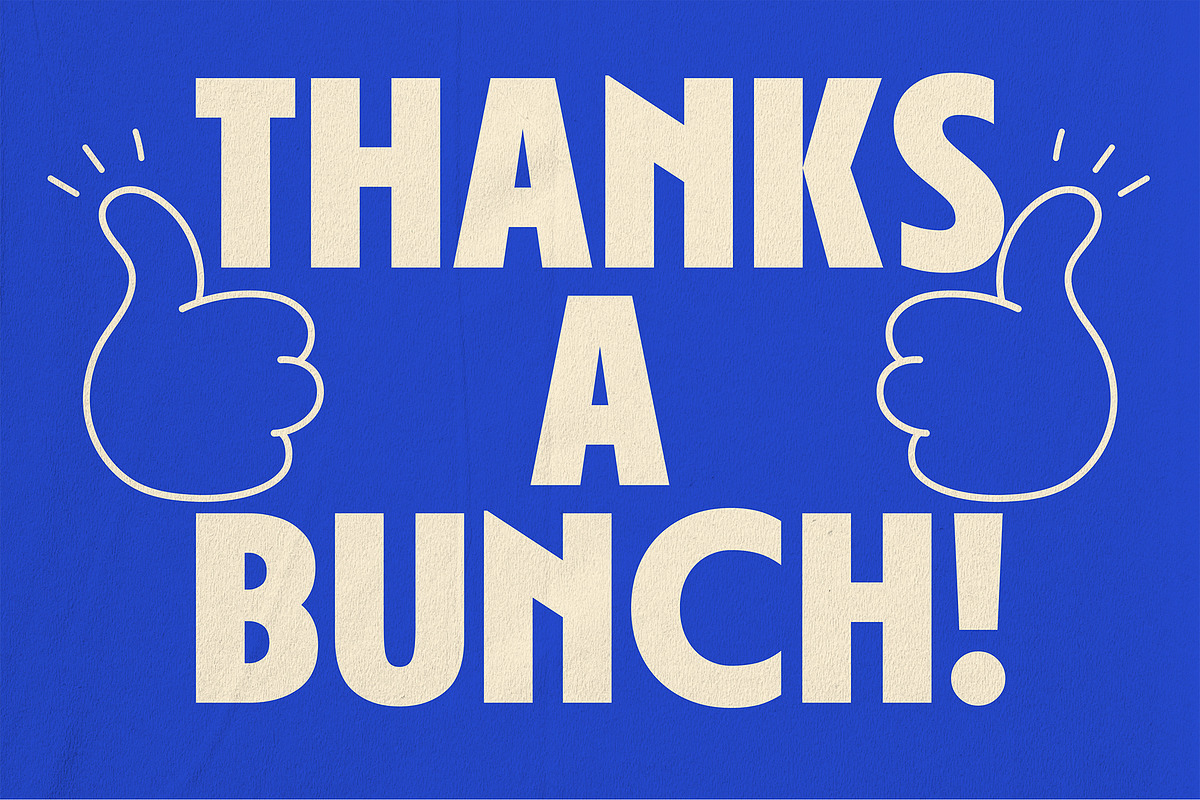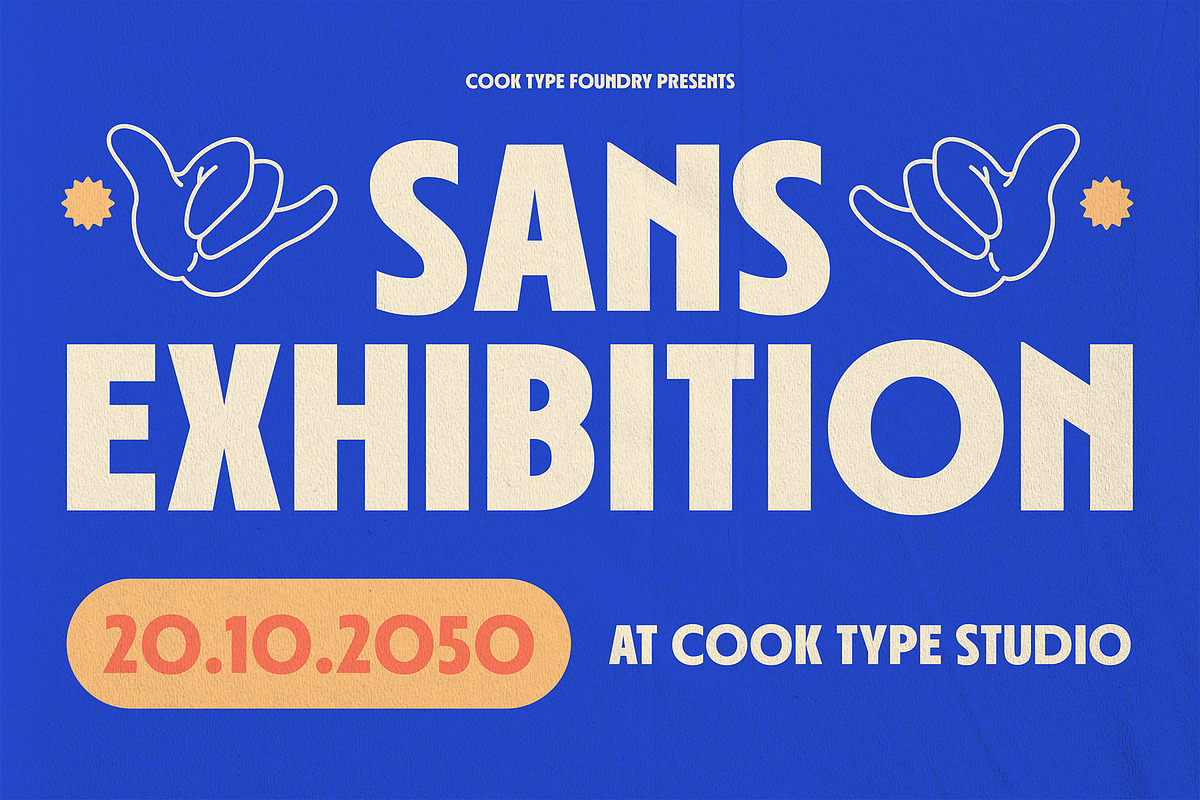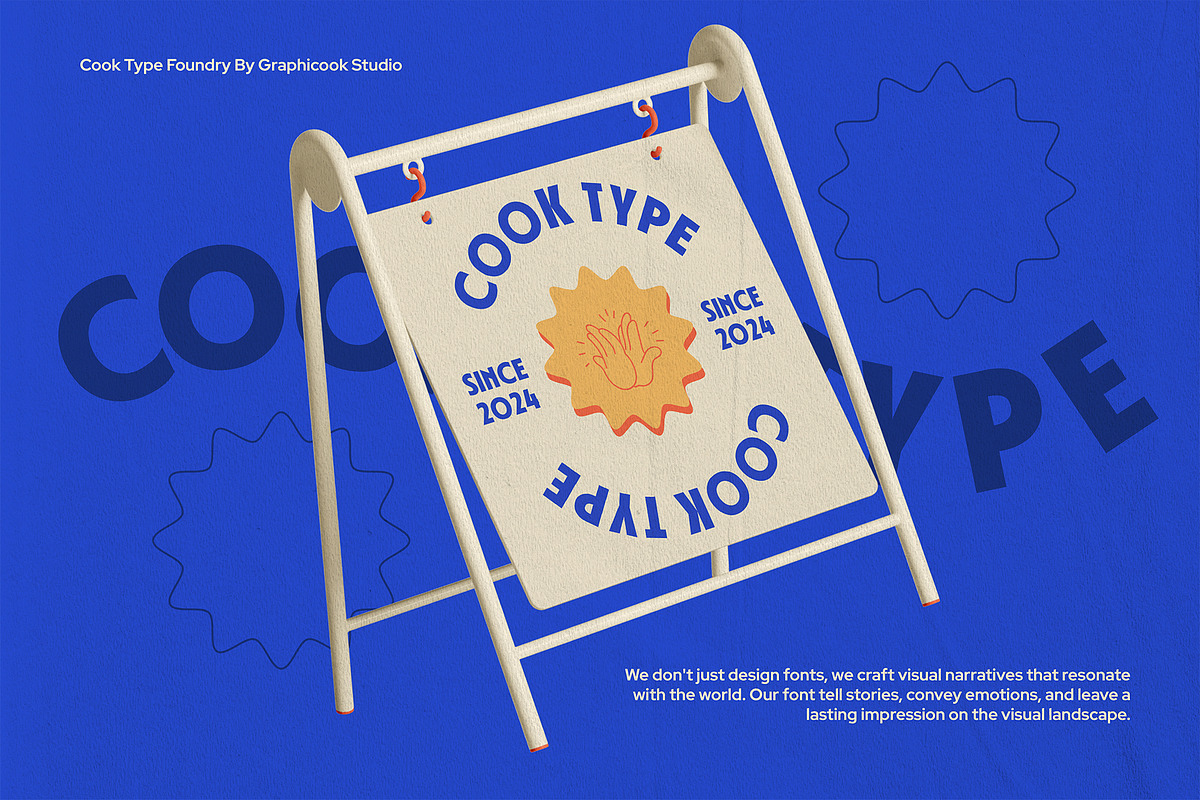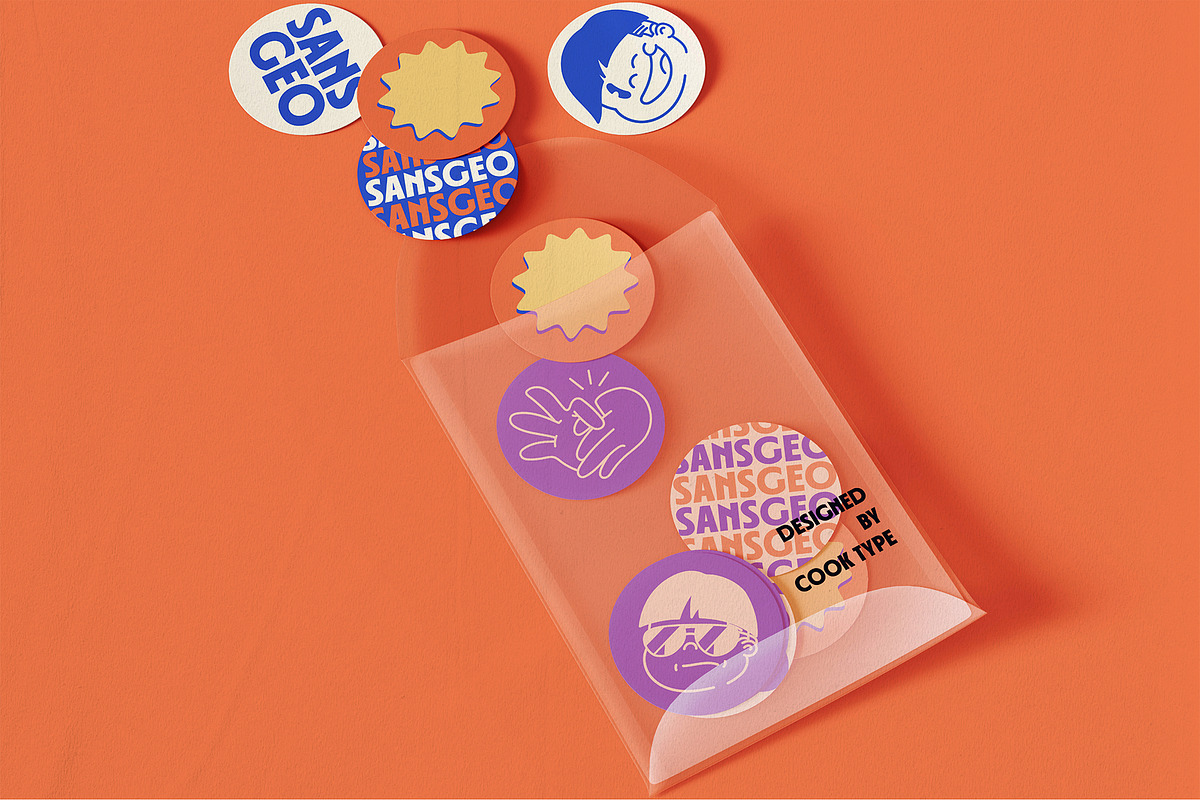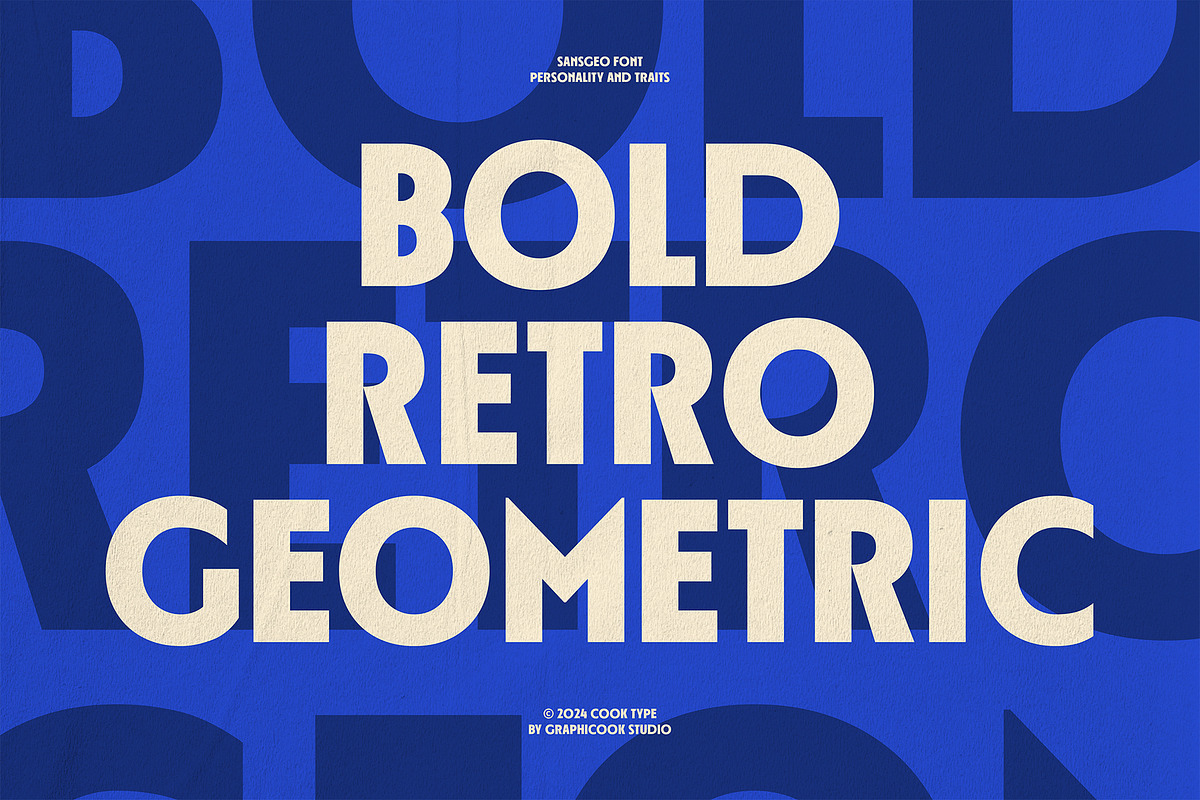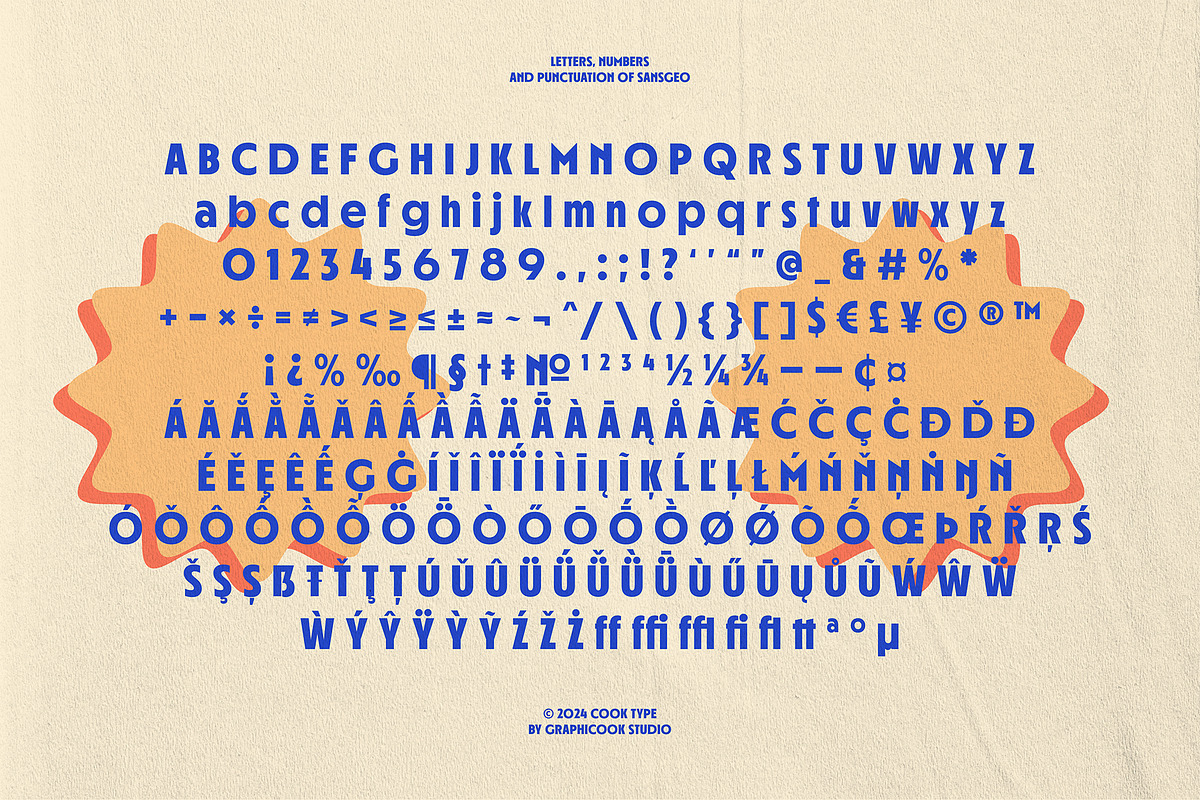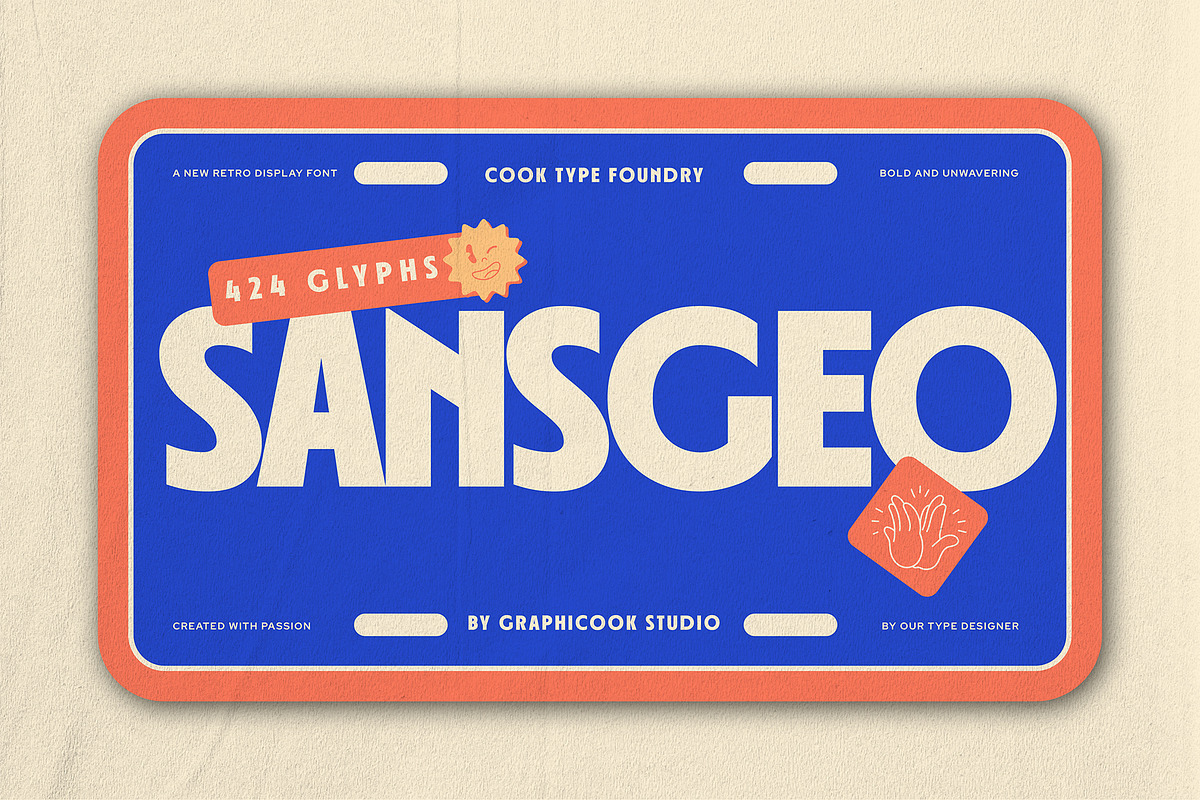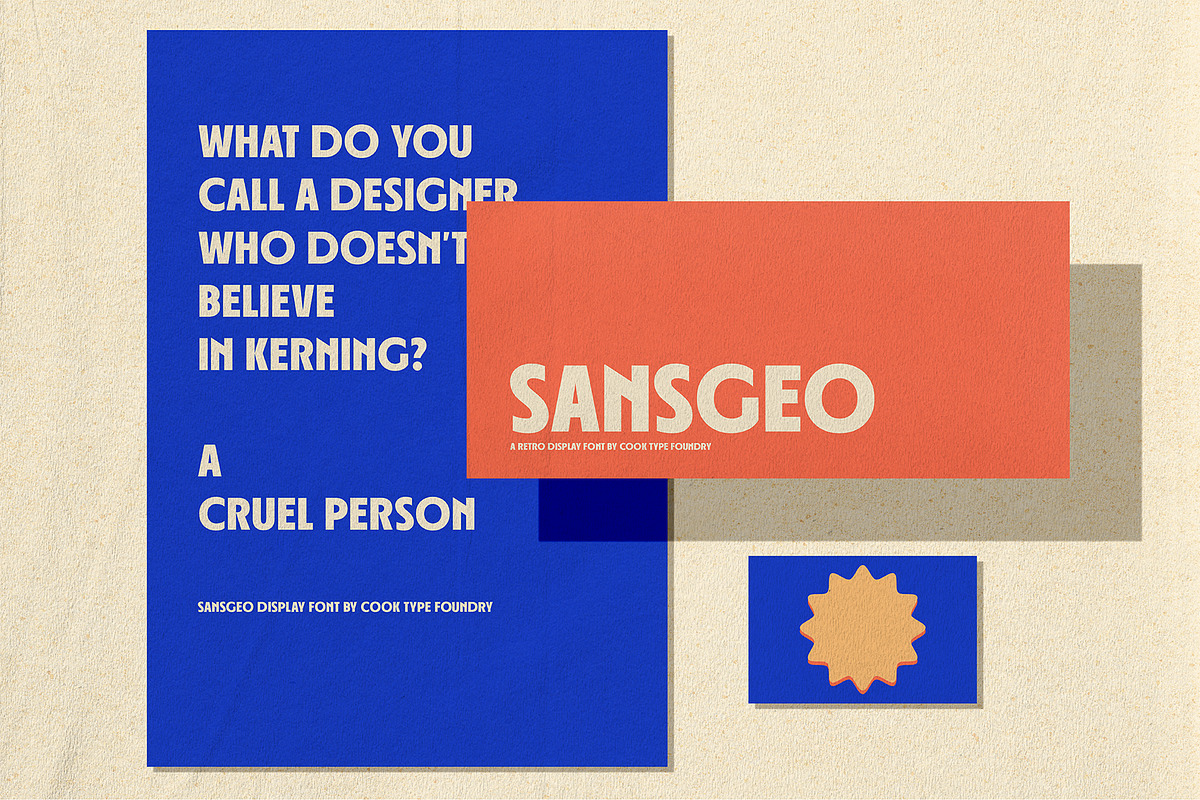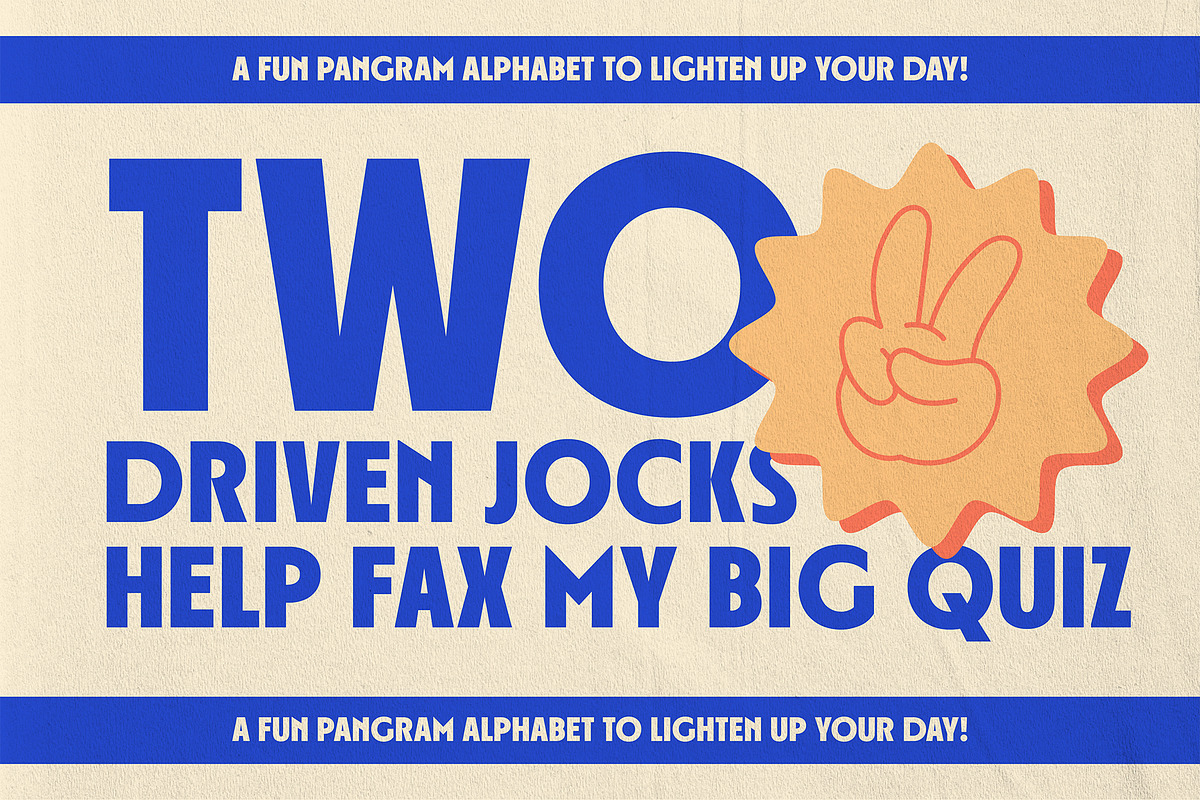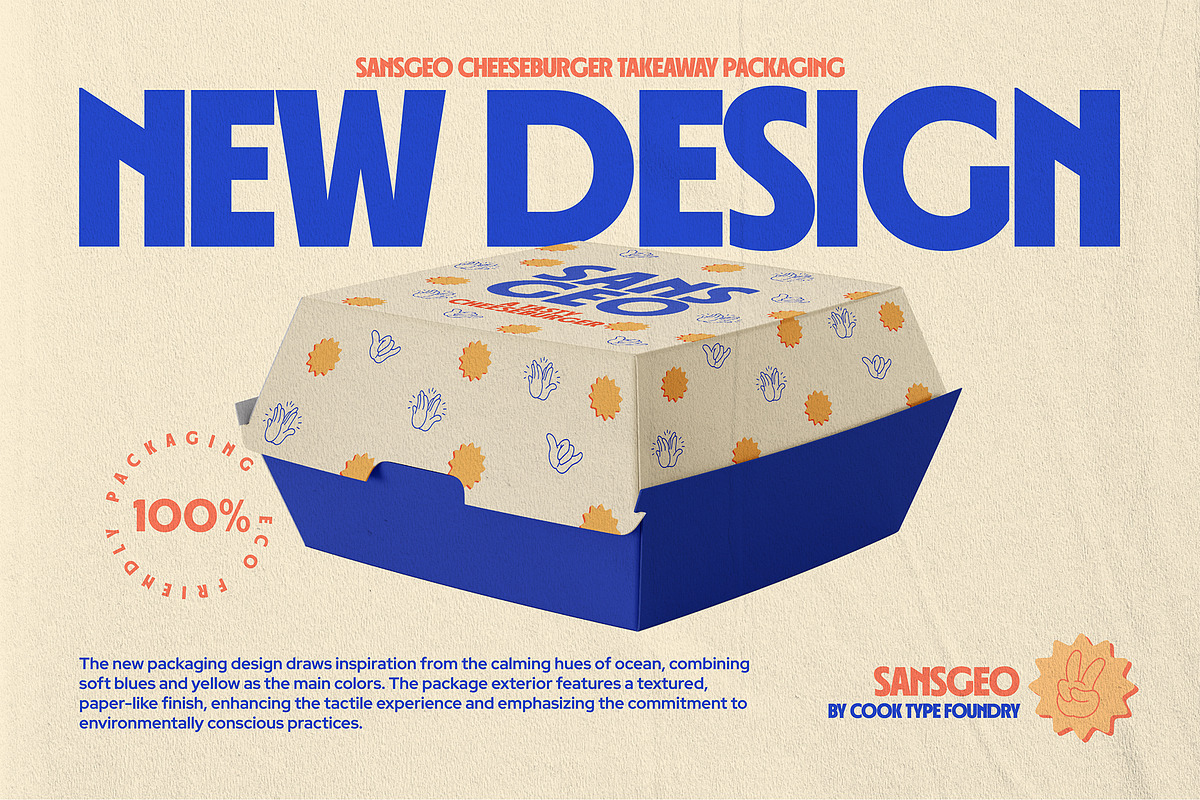
Sansgeo Geometric Sans
Sansgeo is a timeless geometric typeface that blends classic elegance with a powerful retro charm. Sansgeo is ideal for any project that requires bold typography, improving your design with its striking and memorable presence.
Sansgeo is perfect for headlines, logotypes, magazines, packaging, quotes, movies, games, cover albums, book covers, and flyers, it's a perfect solution for creating eye-catching designs that stand out in any context.